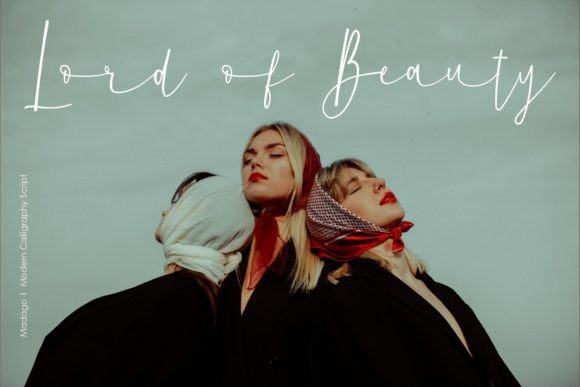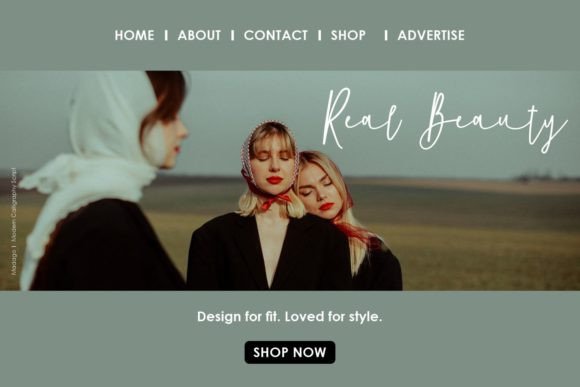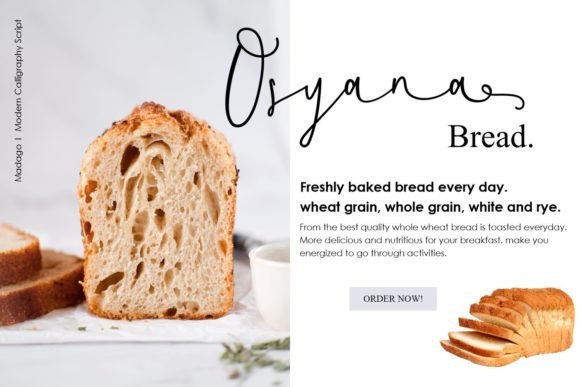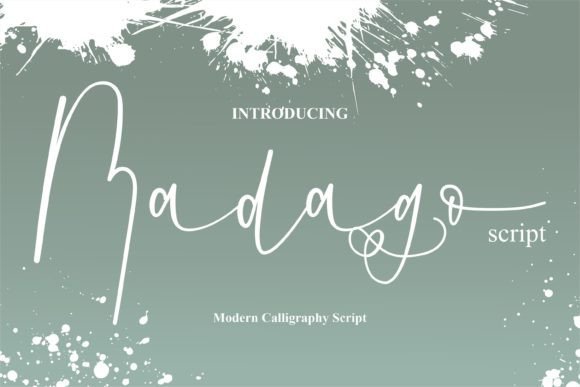
Introduction to Madago Font
Madago feels equally charming and elegant.
Madago Font offers exceptional quality and versatility, making it a valuable addition to your design toolkit. Whether you’re creating for personal projects or commercial use, Madago Font delivers professional results.